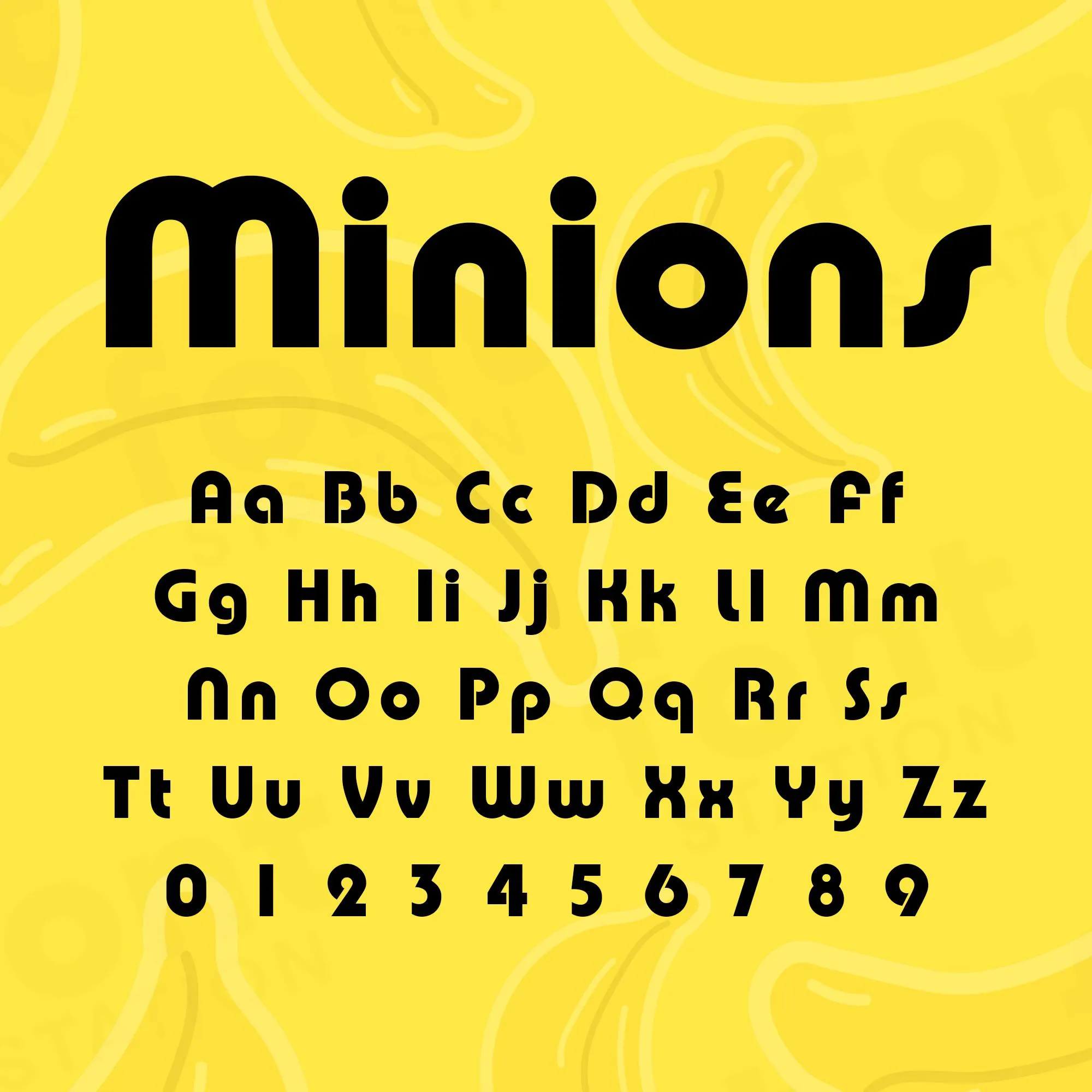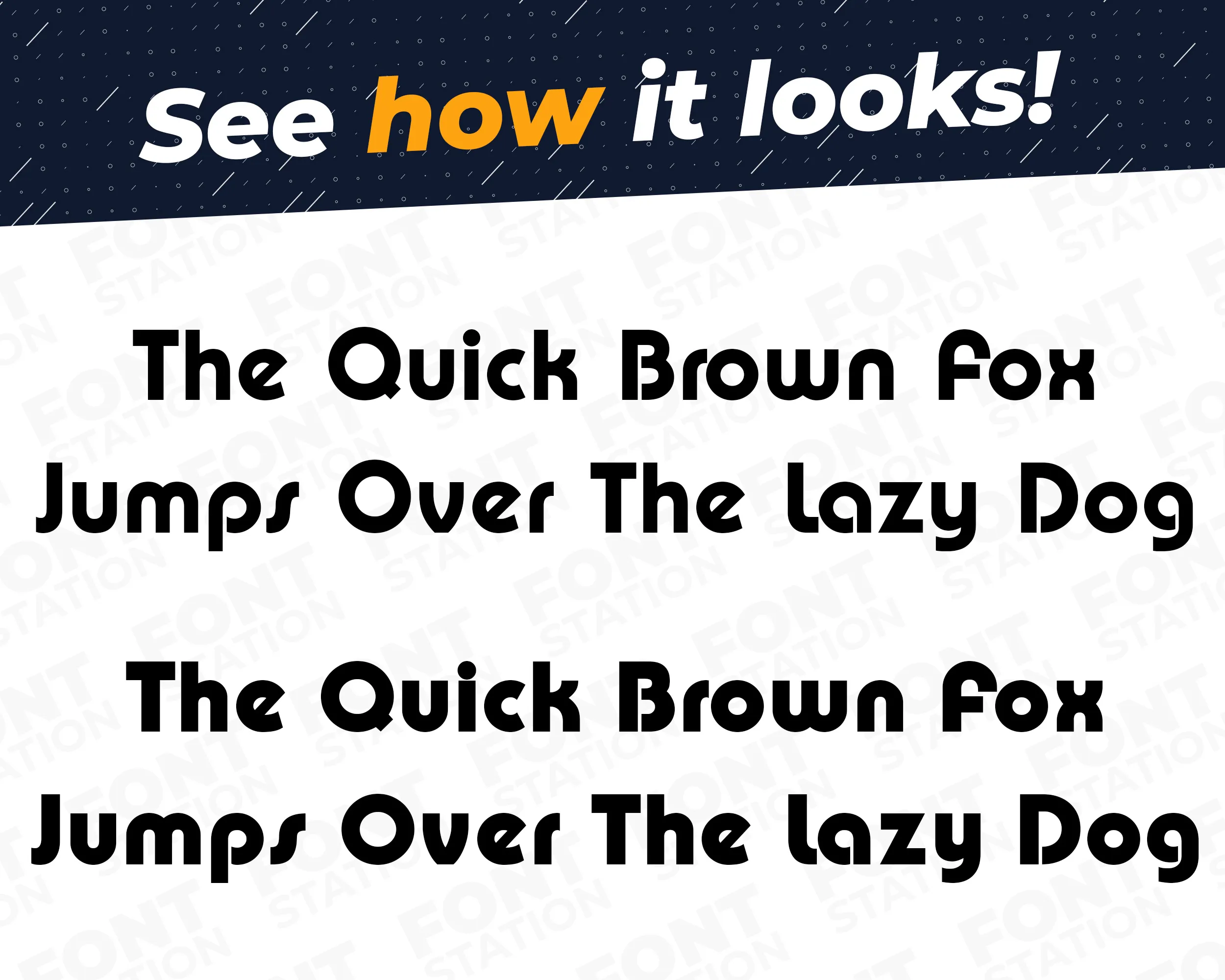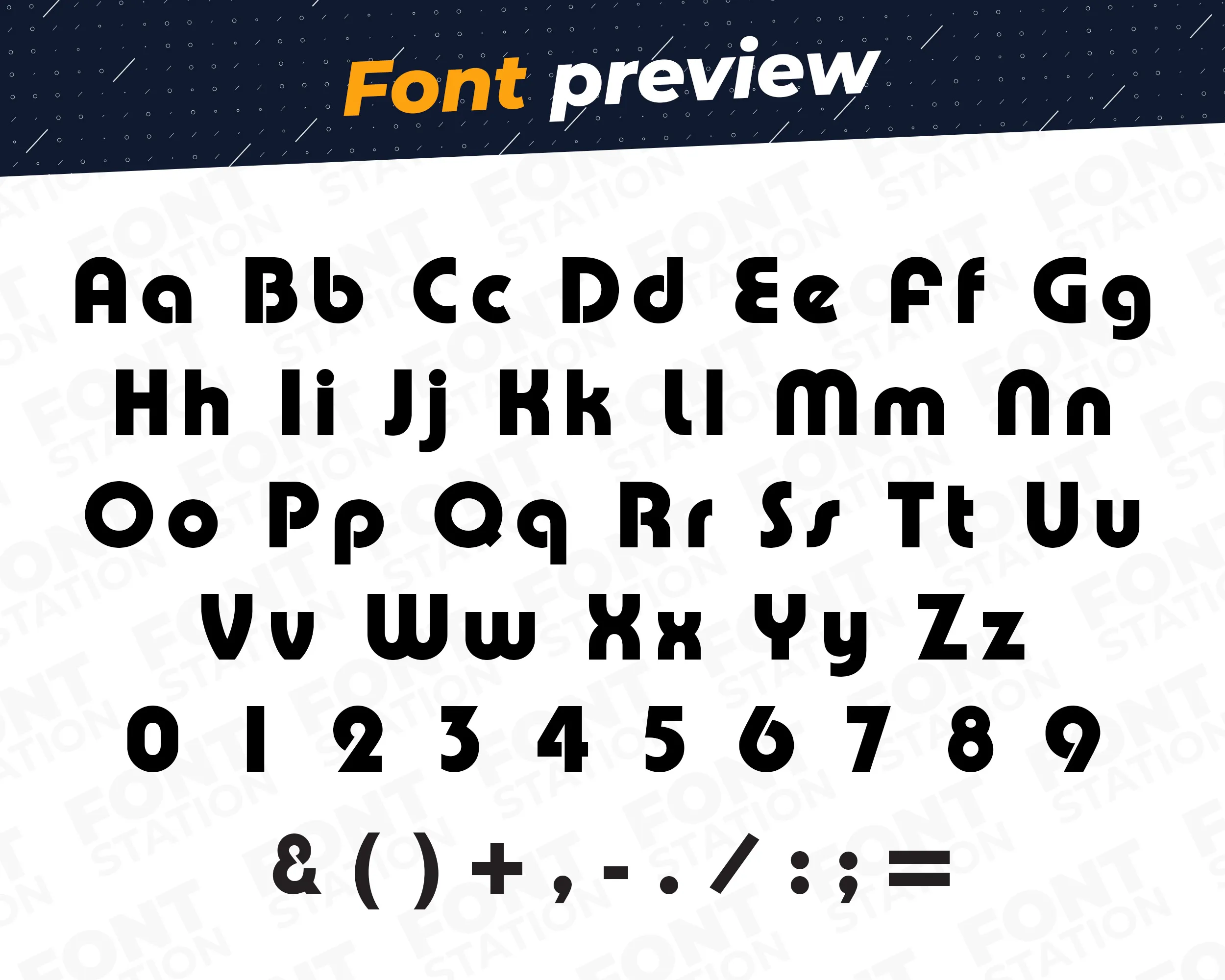
Our Banana typeface, inspired from Minions font
Grab your computer, tablet or other device and start creating right now with our Minions font letters! Our Banana typography is inspired from Minions animated movie font, making it ideal for various digital creations (logo, word…), sublimation, cake toppers, stickers, event decorations, and more.
Image showing all characters available in the Minions font created by FontMaze.
Minions Font